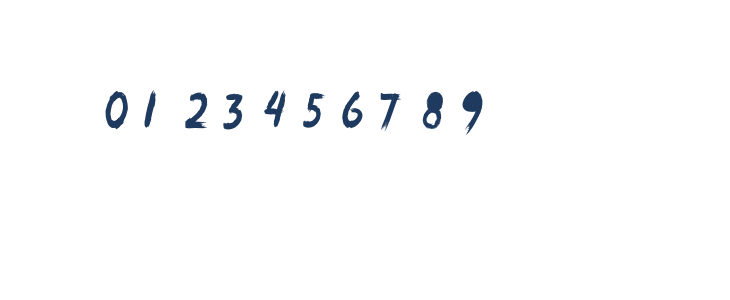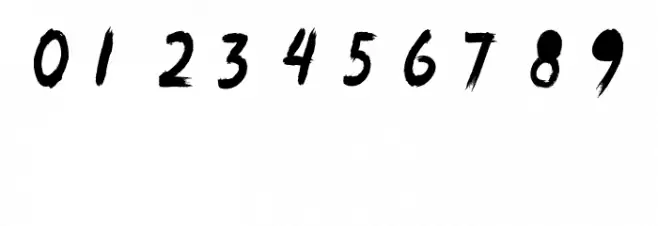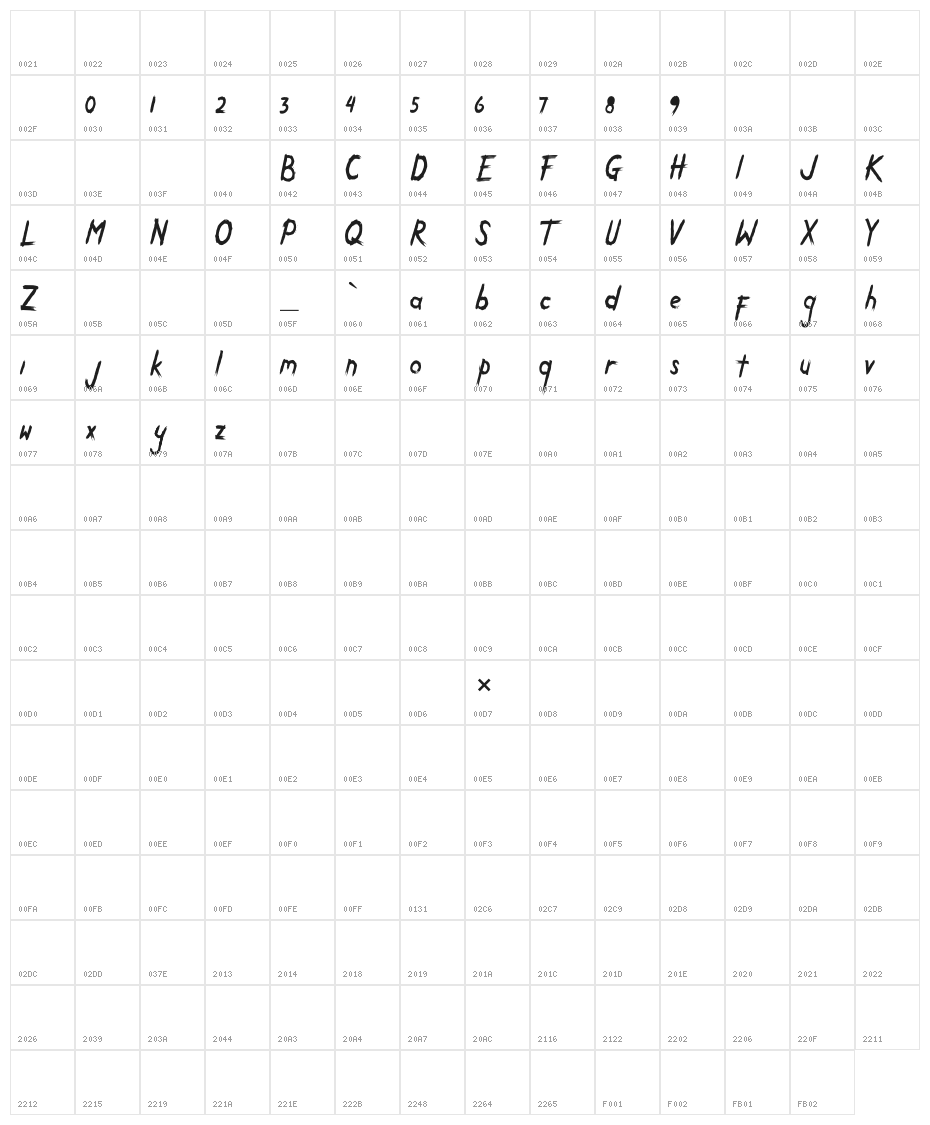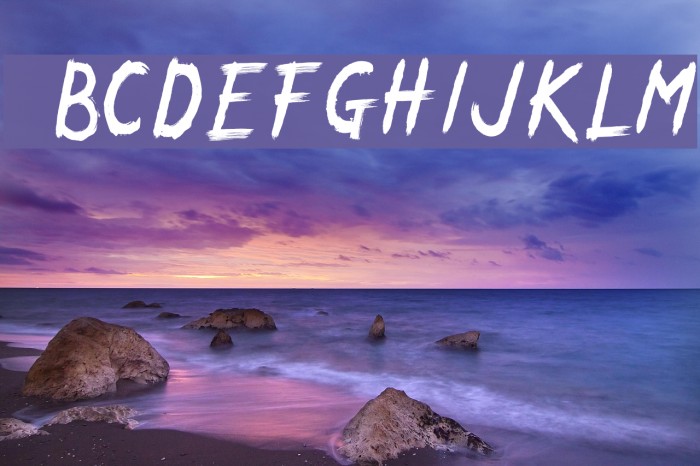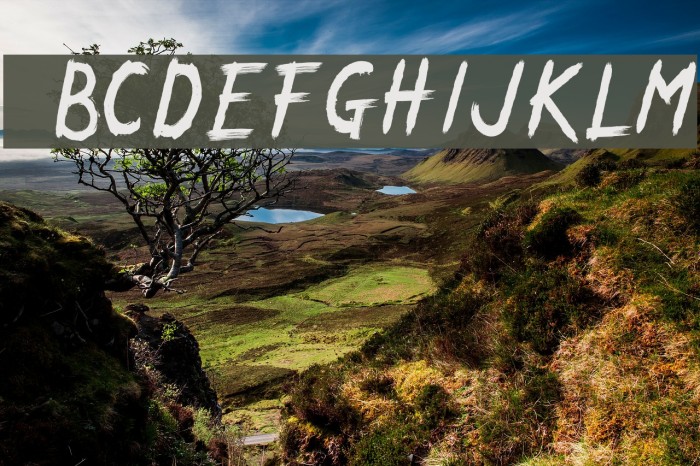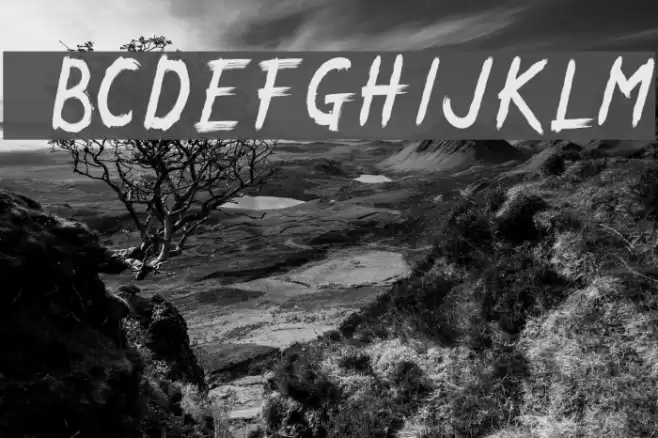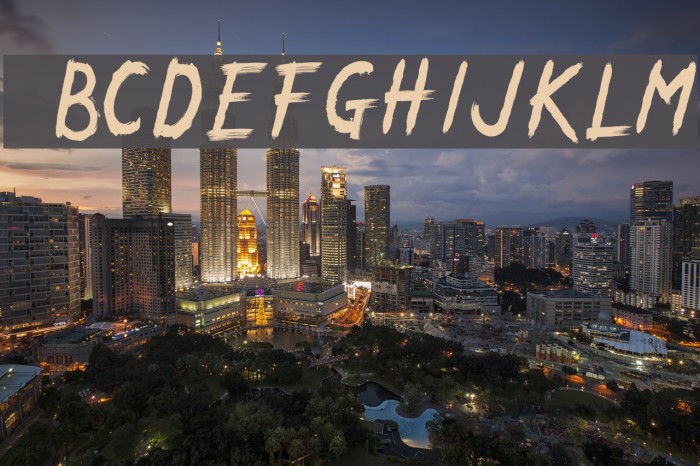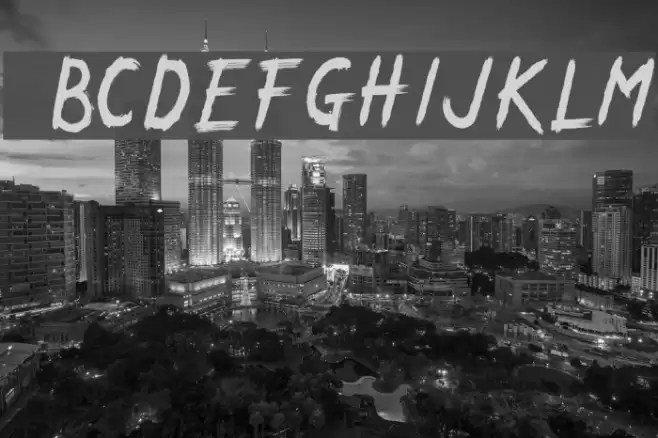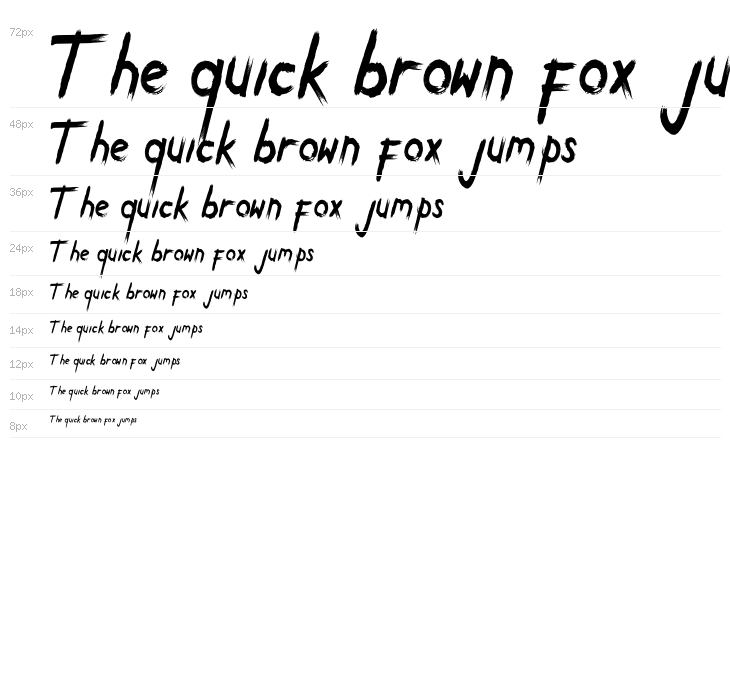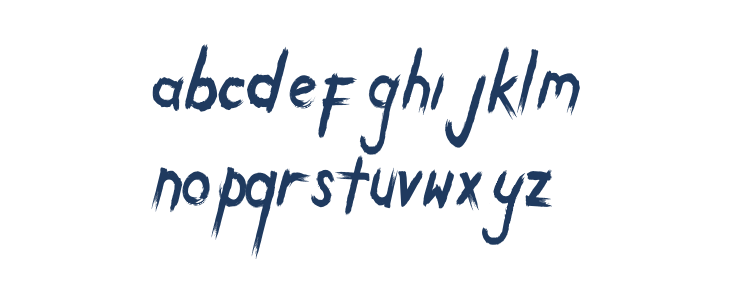
ENERGY OF ASIA Font
ENERGY OF ASIA Description
This font features a dynamic and energetic brushstroke style, reminiscent of traditional calligraphy with a modern twist. The letters are bold and expressive, with varying stroke thickness that adds a sense of movement and vitality. The uppercase and lowercase characters maintain a consistent style, while the numerals and special characters complement the overall aesthetic. The brush-like texture gives it a handcrafted feel, making it ideal for projects that require a personal touch or artistic flair.